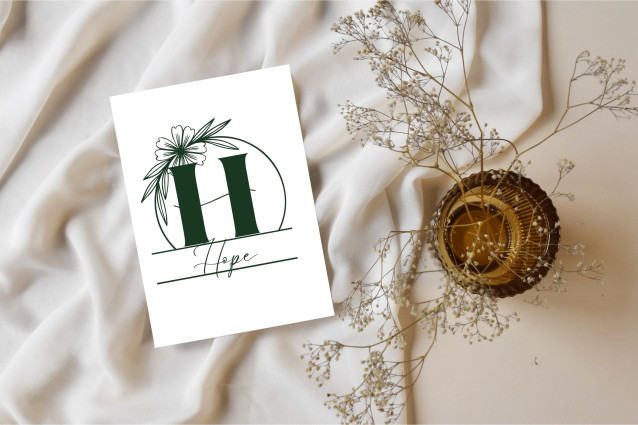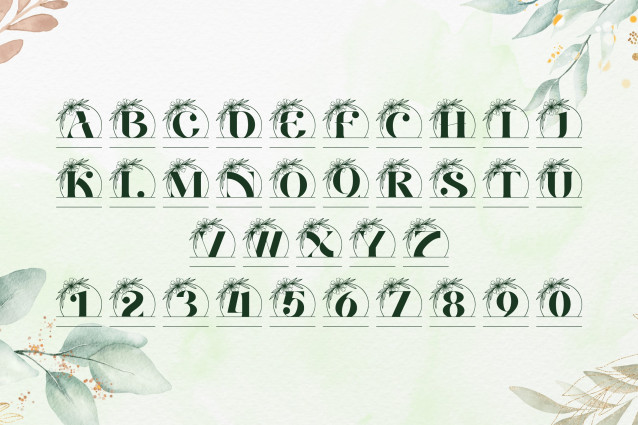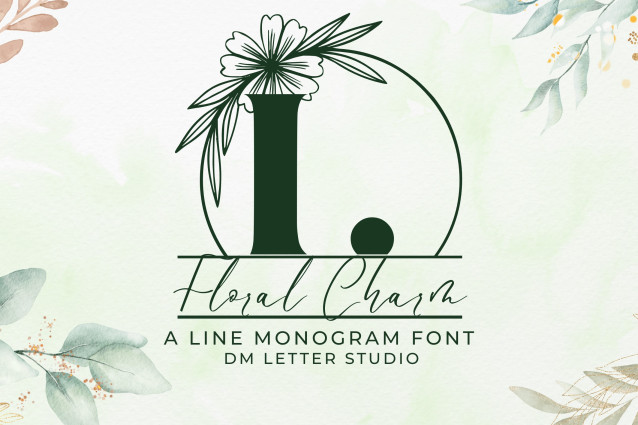
Floral Charm Line Monogram Font
Floral Charm Line Monogram Font is an elegant serif monogram font featuring graceful line-art floral embellishments for a clean, sophisticated aesthetic. Each uppercase letter is paired with minimal yet expressive botanical line drawings, making this font perfect for modern weddings, custom logos, and high-end personalized gifts. The minimalist floral elements offer timeless charm with a contemporary twist.